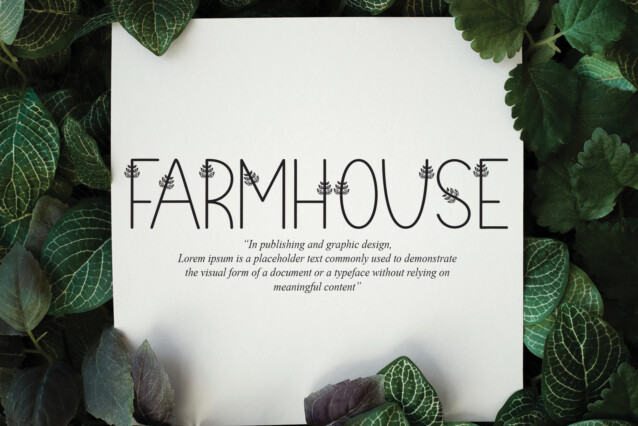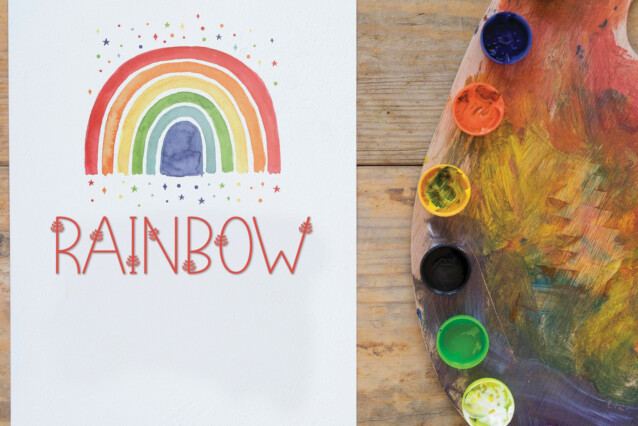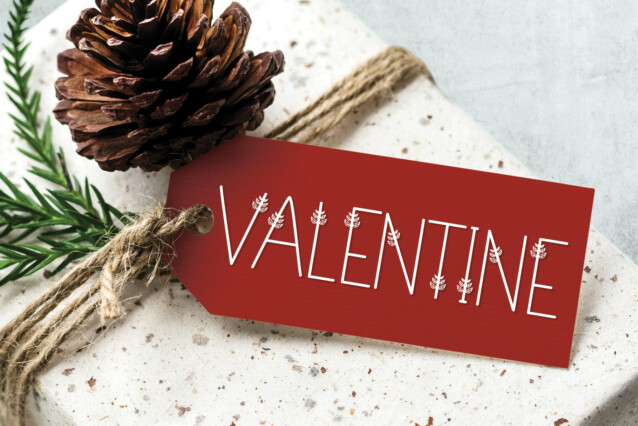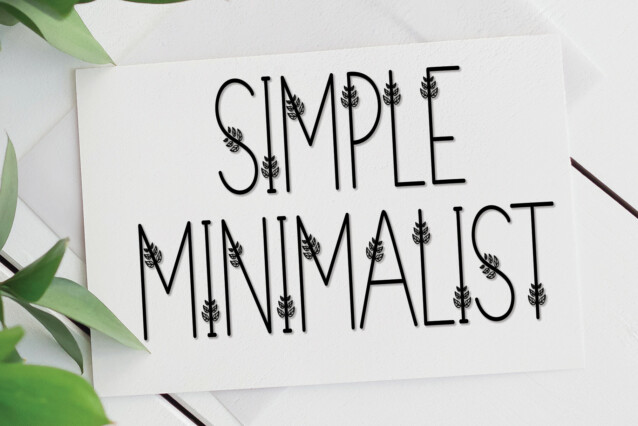
Leaves Flower Display Font
Leaves Flower Display Font is a lovely and sweet handwritten decorative font. No matter the topic, this font will be an incredible asset to your fonts’ library, as it has the potential to elevate any creation.